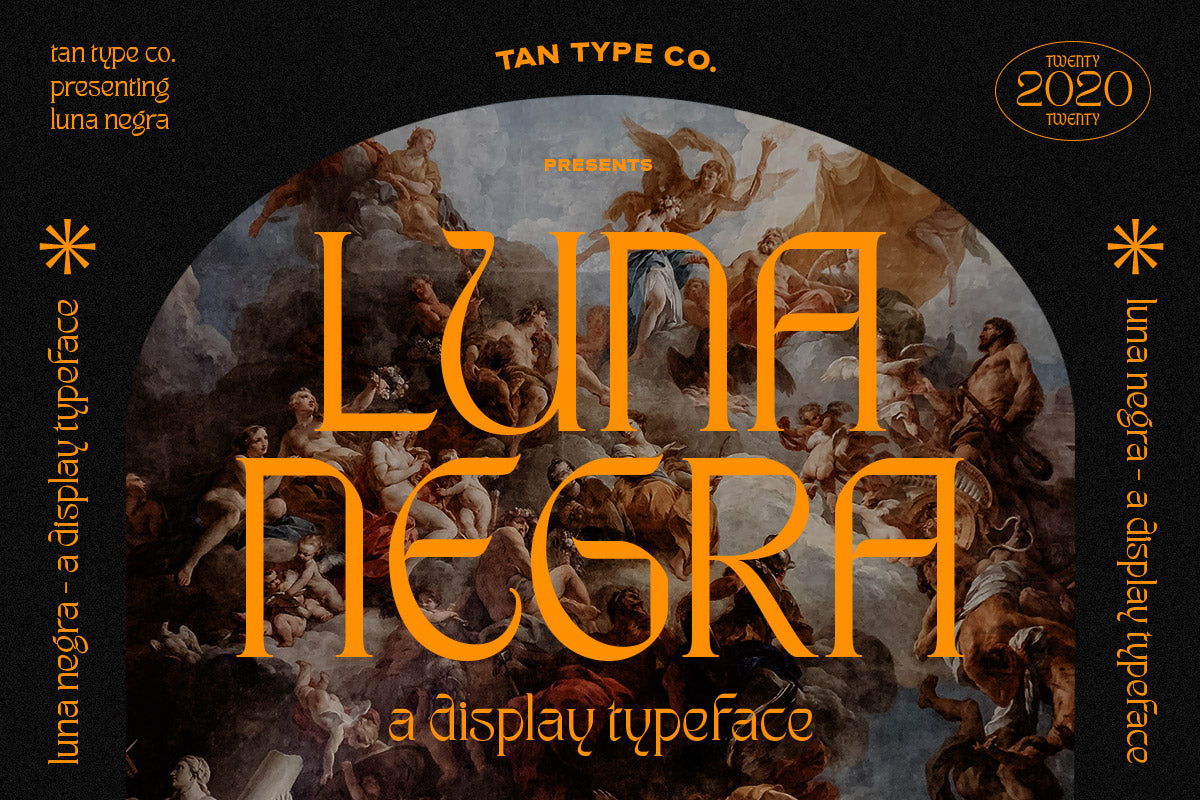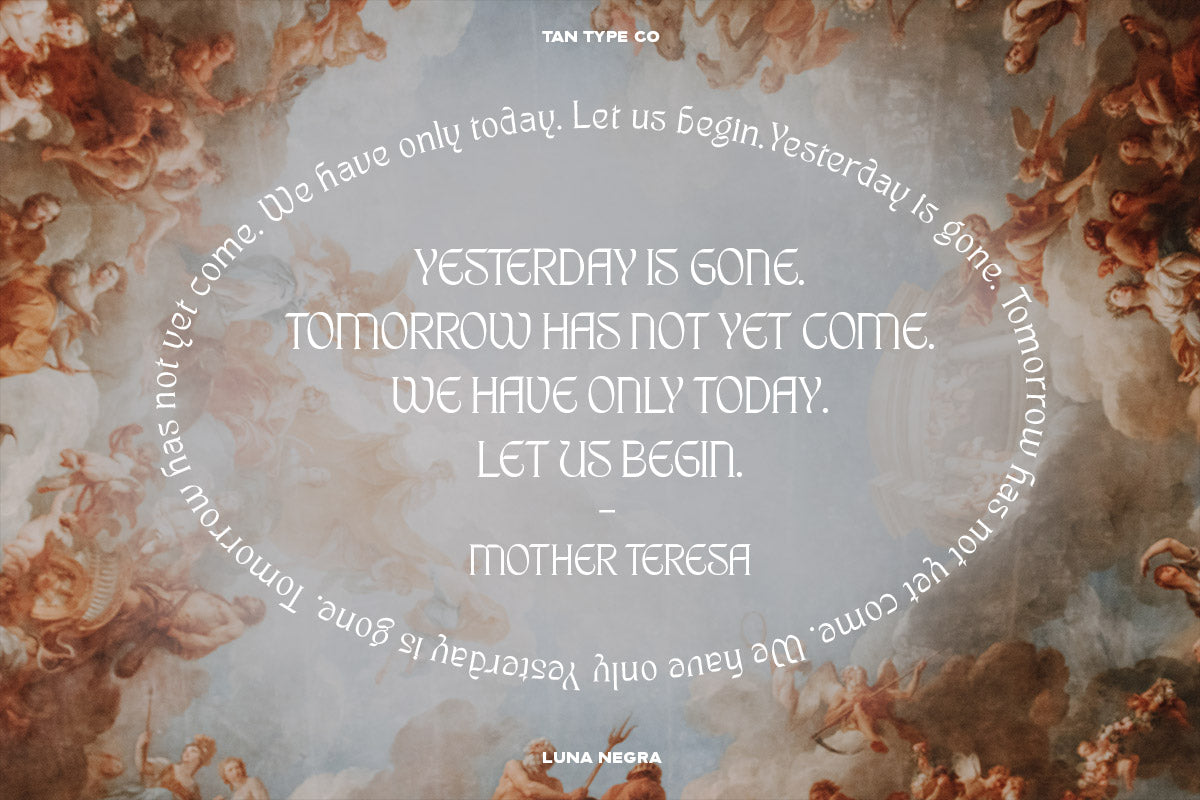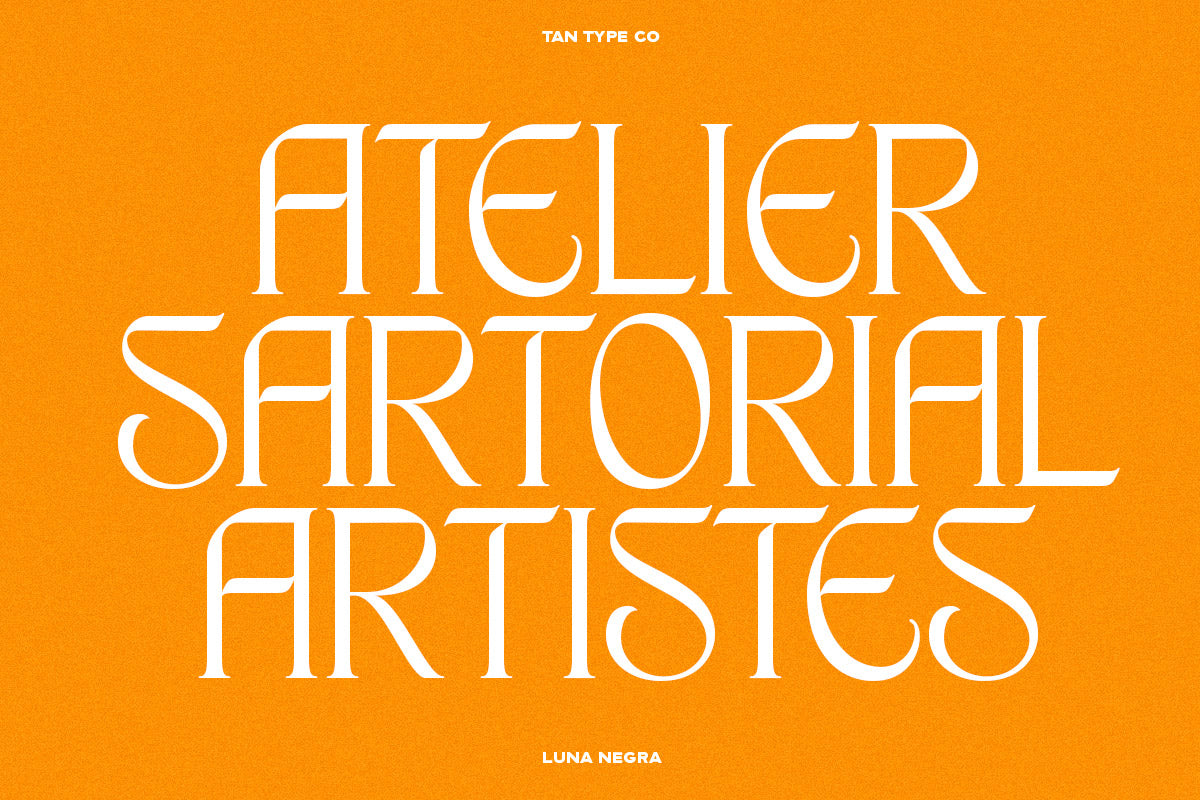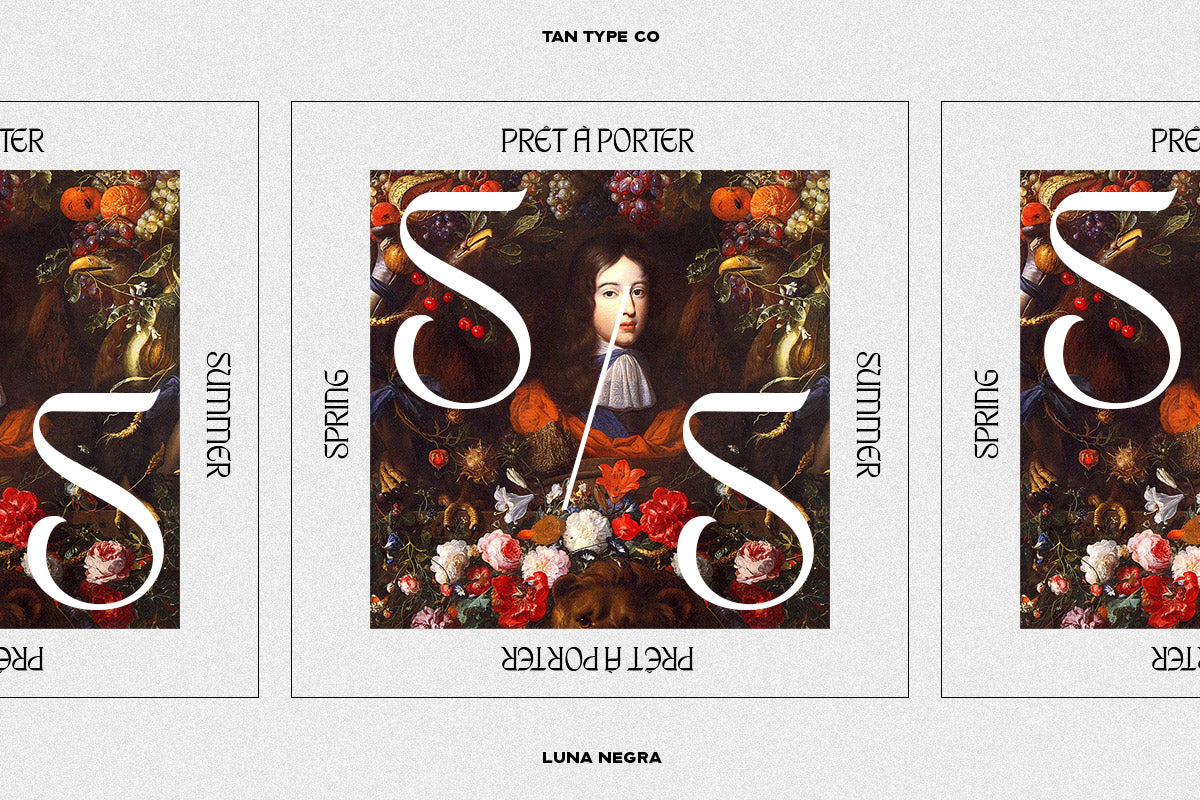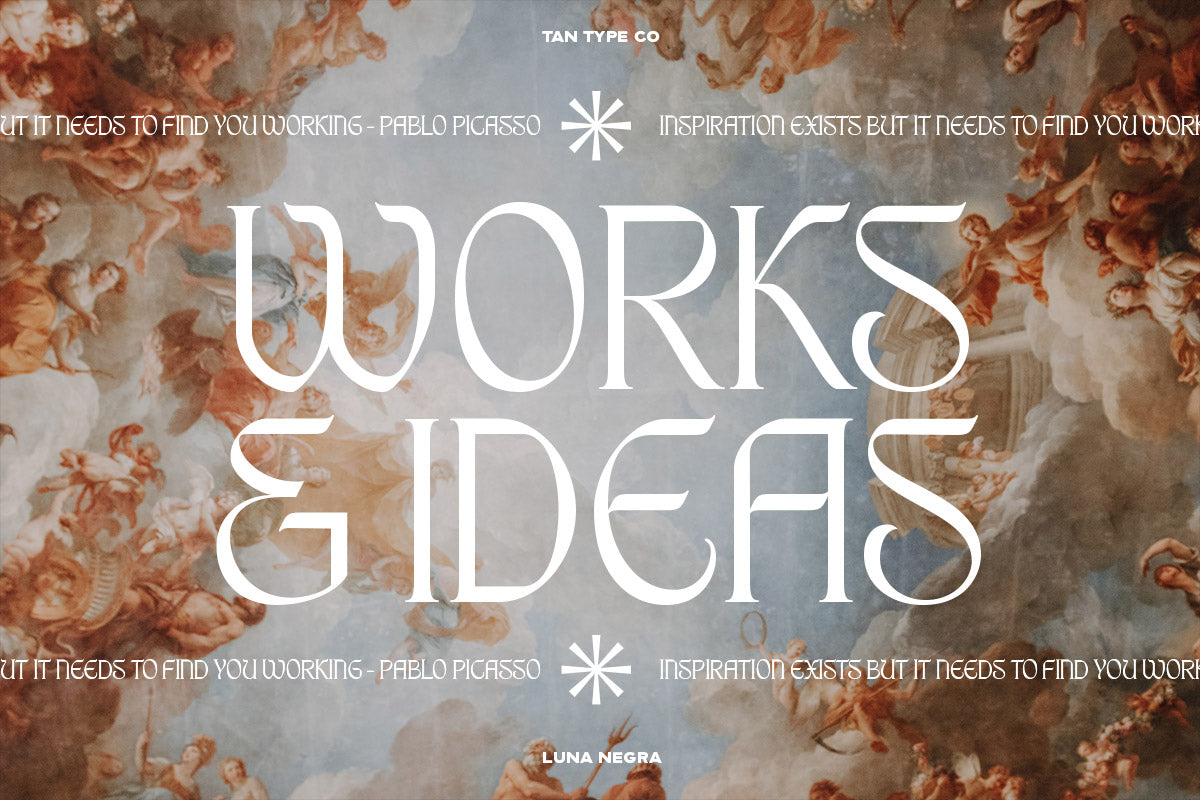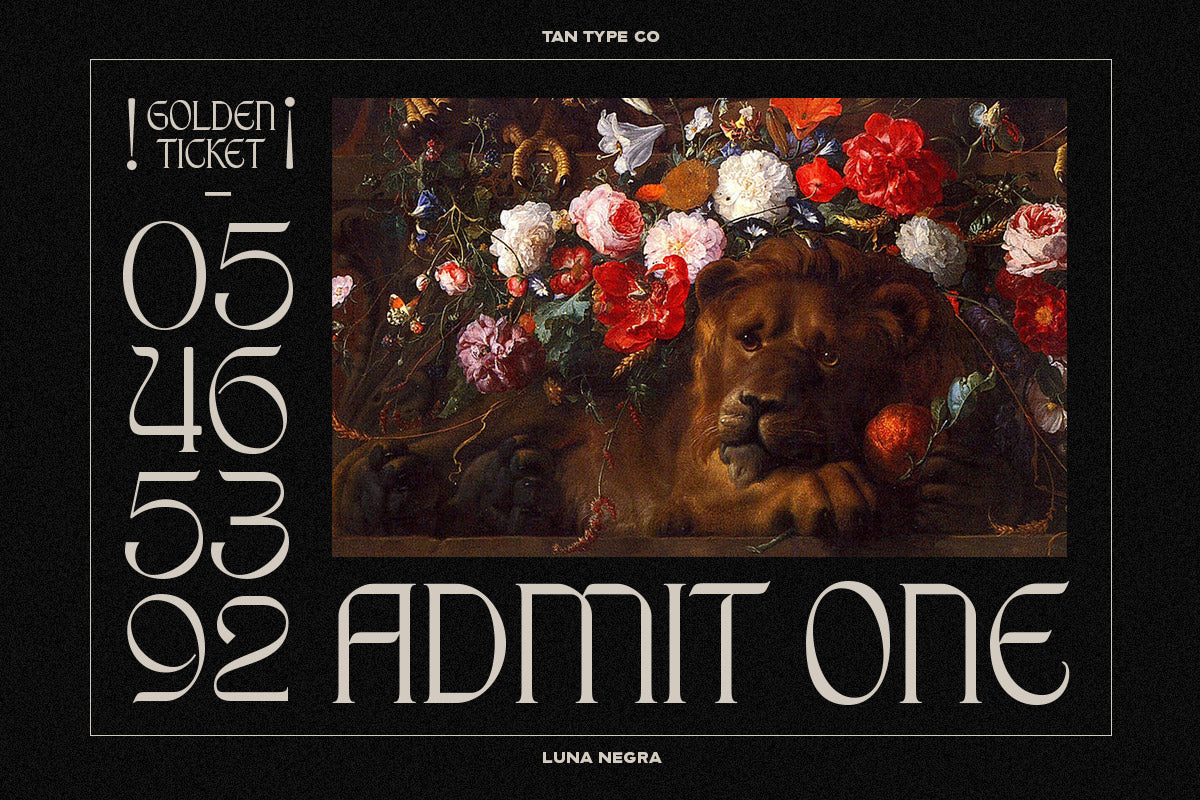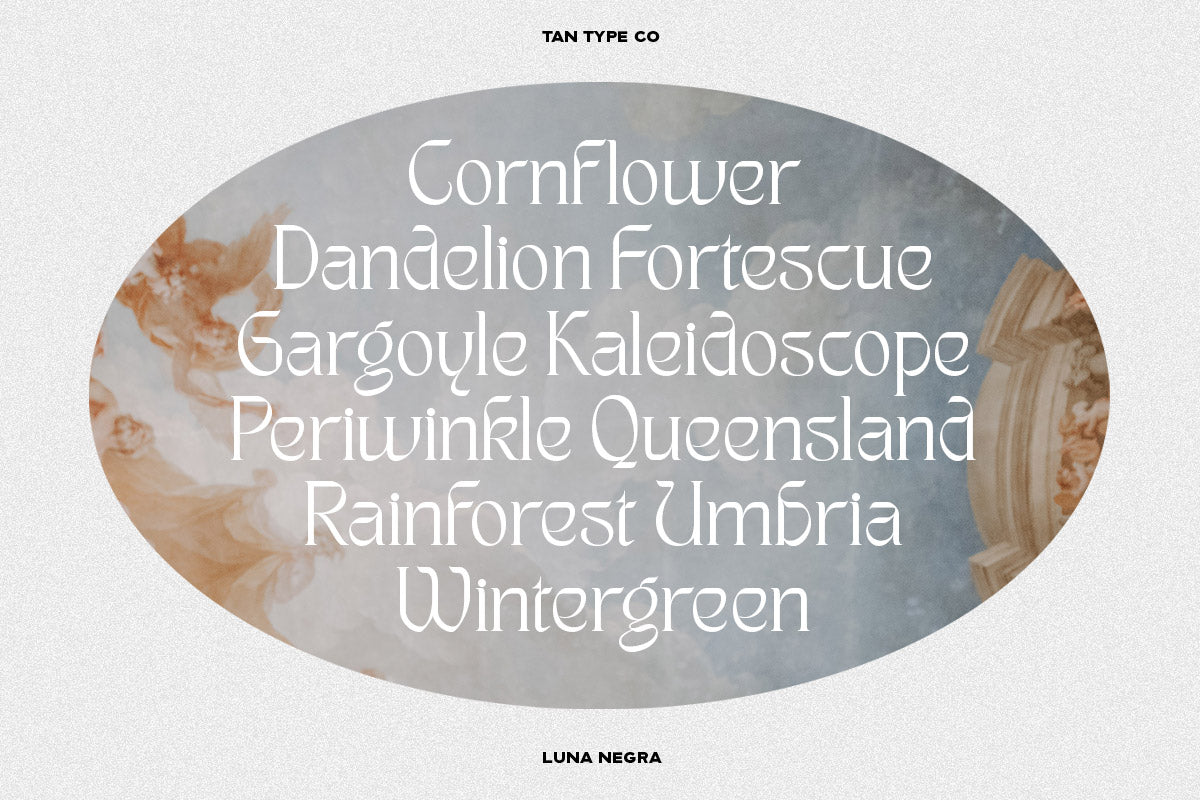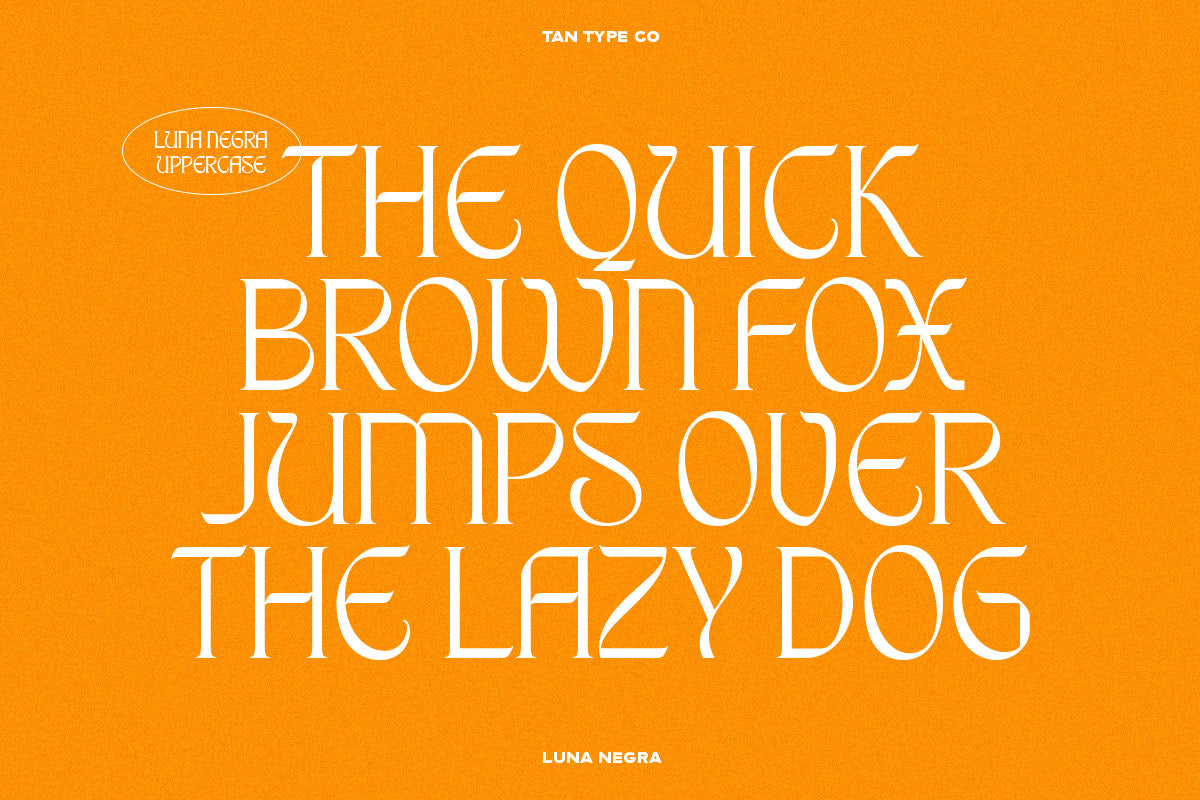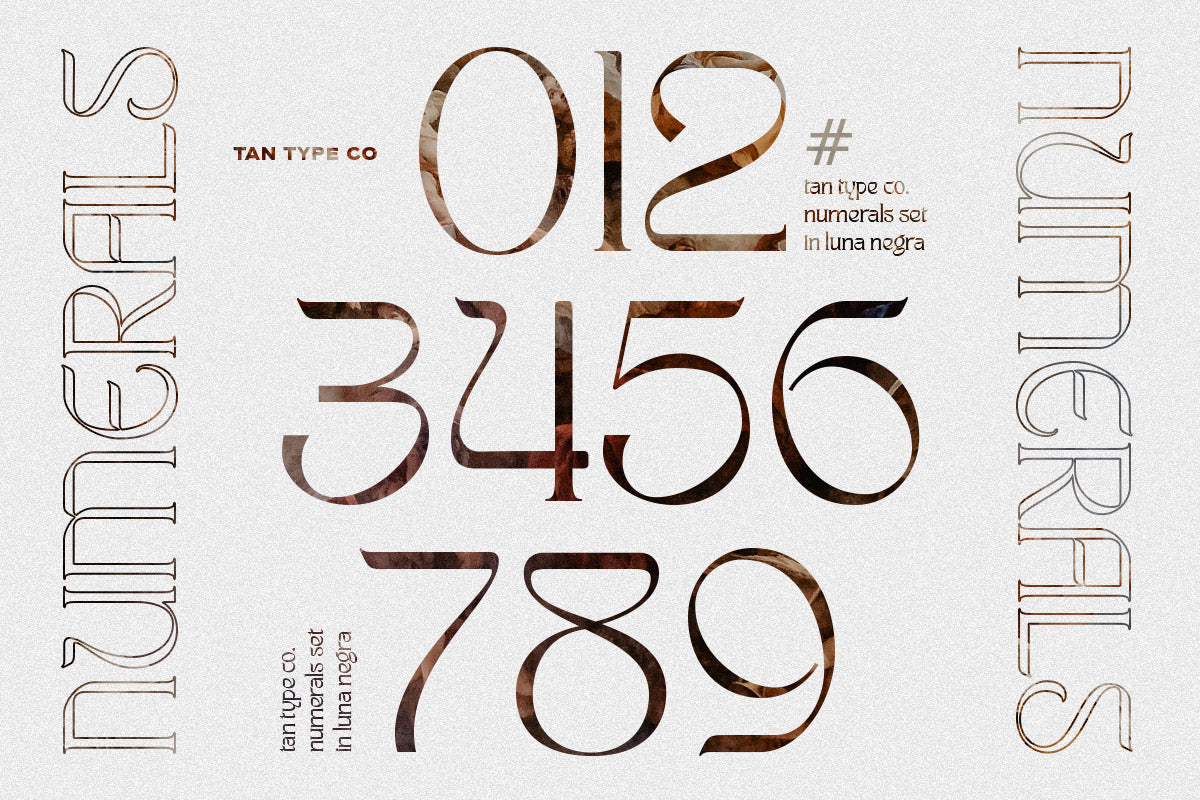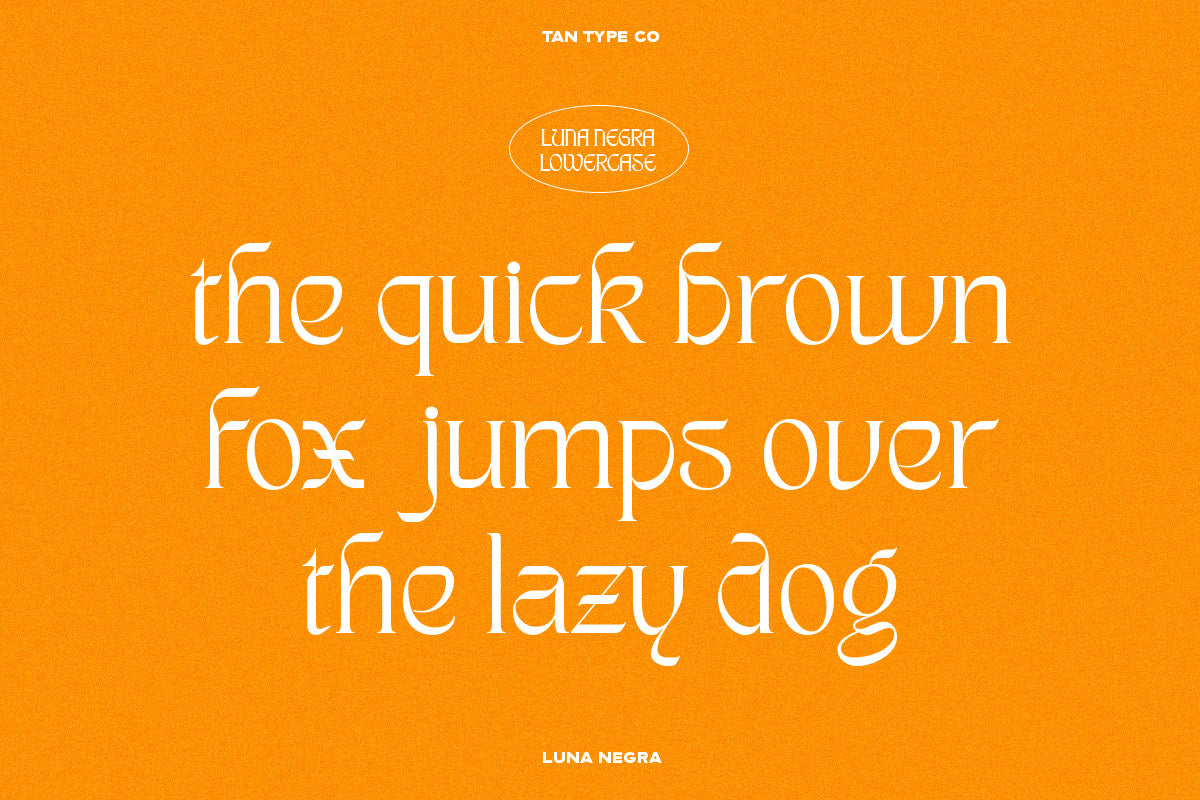
LUNA NEGRA is a mystical and dramatic display serif typeface with sharp angles, high contrast, and otherworldly elegance. Its unique letterforms blend classical structure with futuristic flair, creating a bold and enigmatic presence that feels both ancient and avant-garde.